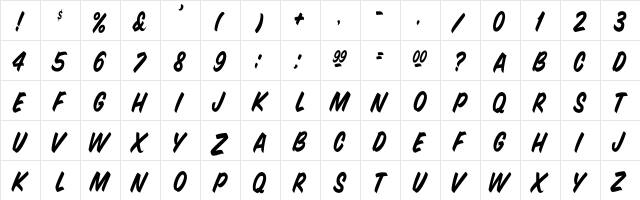
SnyderSpeed Cn Regular
Design Context for SnyderSpeed Cn Typeface
SnyderSpeed Cn takes a measured approach to typography — its balanced proportions and neutral character make it a reliable workhorse for both digital and print work.